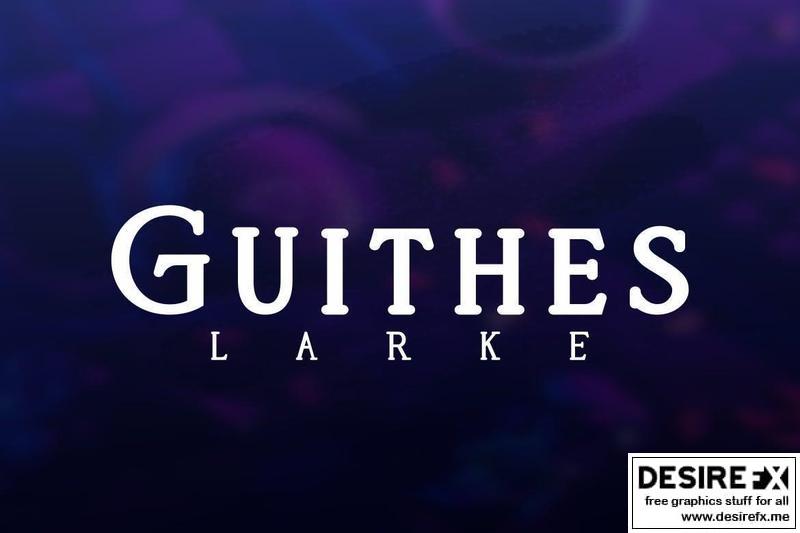
Guithes Larke FPSAE76
Introducing Guithes Larke, a simple and elegant serif font.
So perfect for you who needs a typeface for logo designs, magazine, social media, brochure, and many more.